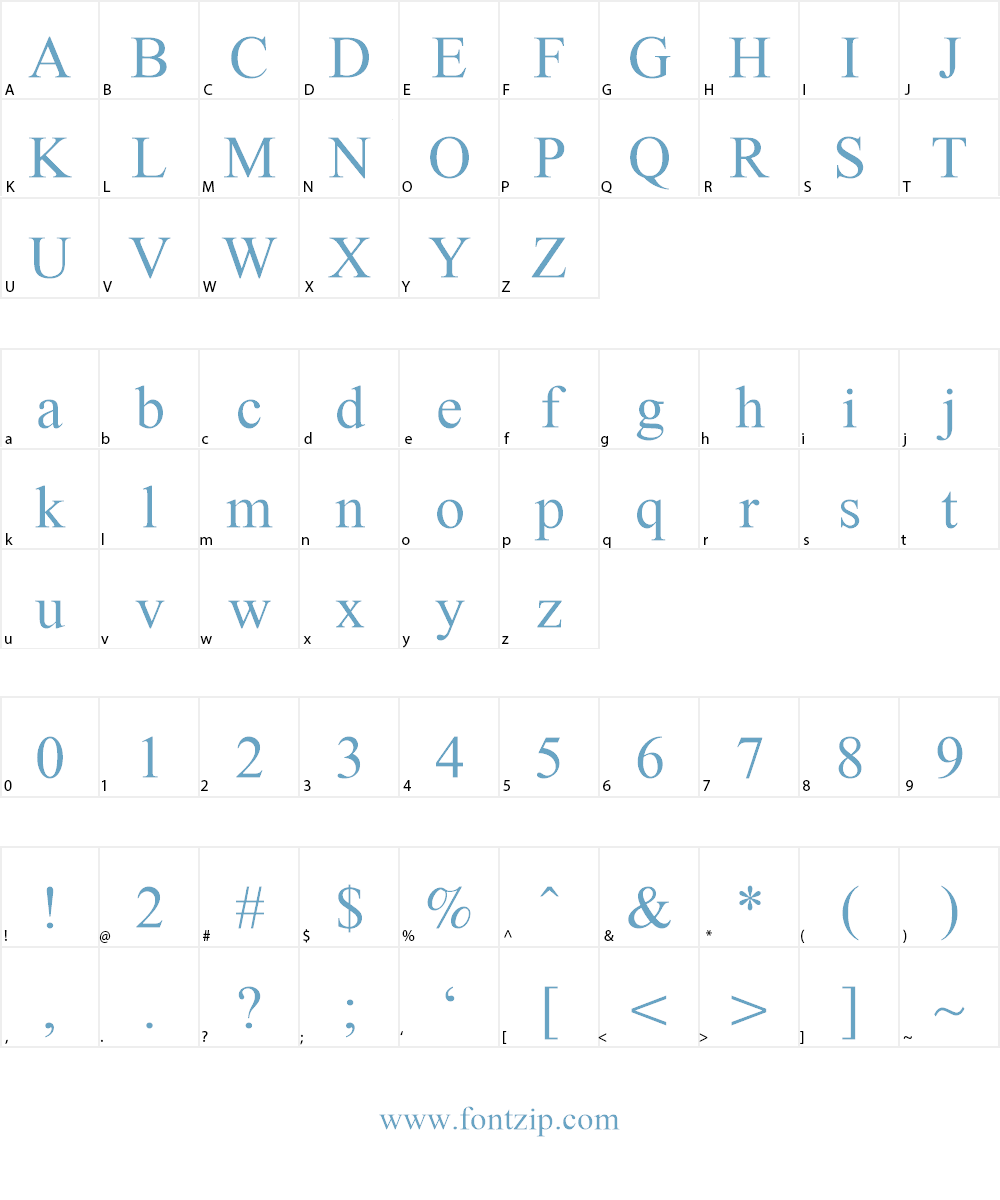
Doulos SIL is a Unicode-encoded serif font similar to Times New Roman. Besides having a comprehensive inventory of glyphs needed for almost any Roman- or Cyrillic-based writing system, it also contains the entire inventory of the International Phonetic Alphabet. It has built-in “smart-font” capabilities, so diacritics are properly placed.
Doulos is very similar to Times/Times New Roman, but only has a single face - regular. It is intended for use alongside other Times-like fonts where a range of styles (italic, bold) are not needed.
This font is the same as "Doulos SIL" with the exception of a tighter line-spacing.